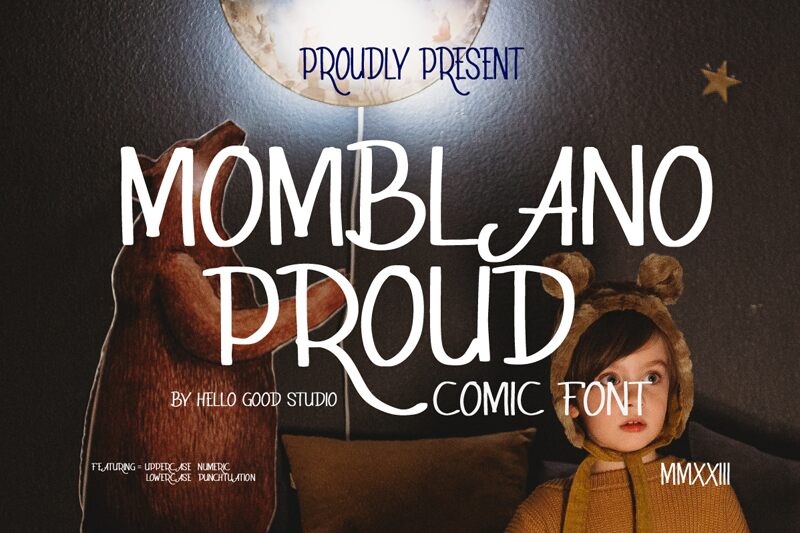
Momblano Proud font by Studio Hello Good is a free handwritten style that brings a youthful, lively, and approachable character to your designs. With its casual and playful flair, it exudes a contemporary and whimsical energy that makes it both expressive and artistic. Perfect for those looking to infuse their projects with an informal yet professional touch, this font captures the essence of comic-inspired design while maintaining a distinctive artistic edge.
Suitable for a wide breadth of design projects, it can be integrated into websites, social media posts, advertising materials, magazines, invitations, comics, educational resources, packaging, labels, and more. Its playful tone makes it especially fitting for children’s content, but it can also lend a fresh, creative twist to more mature design projects.